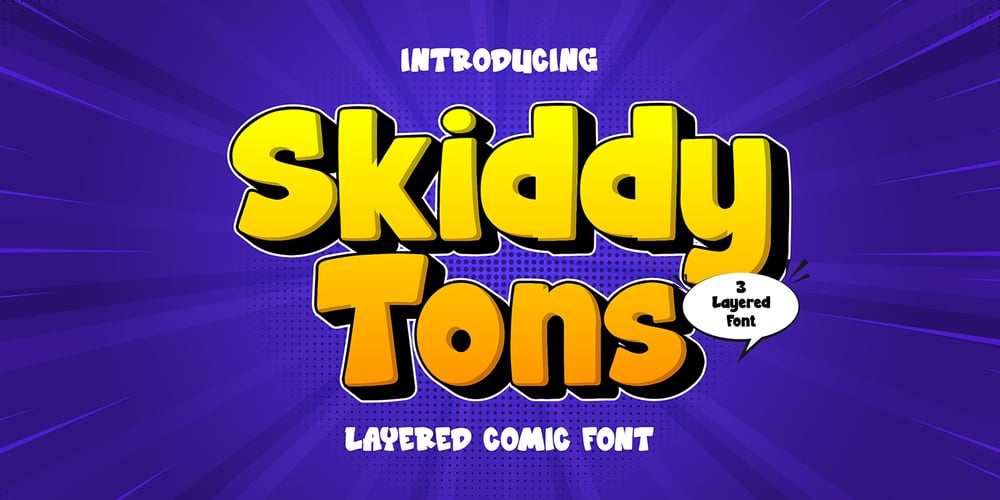
Skiddy Tons 3d Font Font Family was designed by Sipanji and published by Sipanji21. Skiddy Tons 3d Font contains 3 styles and family package options. Skiddy Tons is a cute display font featuring a charming 3D effect, complete with shadow and inner characters. This playful and dynamic font is ideal for children’s projects, posters, headlines, and any creative work that needs a fun and lively vibe. Skiddy Tons’ unique and eye-catching style ensures your message stands out with a delightful and engaging look. Whether you’re designing for a birthday invitation, a school project, or playful merchandise, this font adds a burst of energy and creativity to your text, making it perfect for capturing attention and spreading joy.